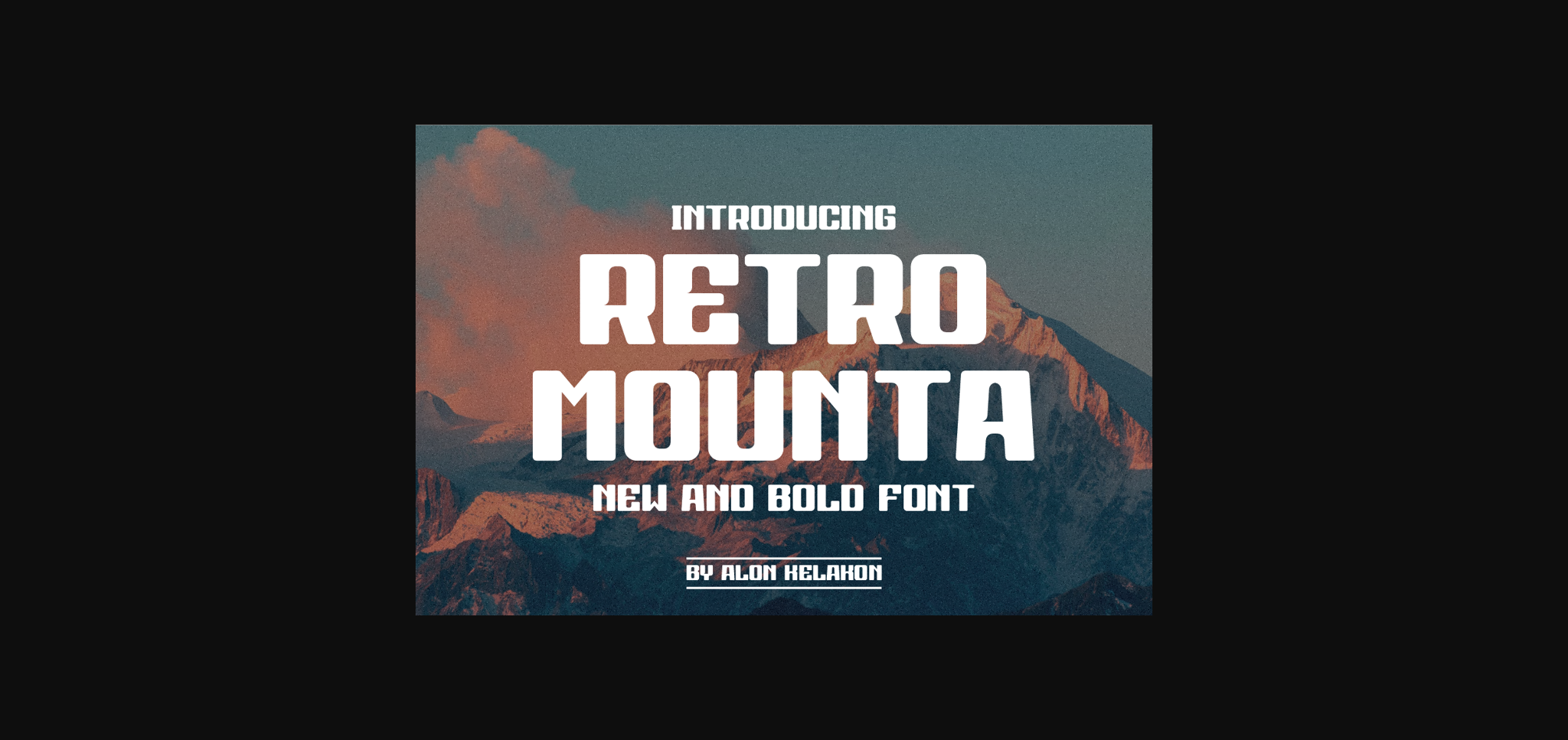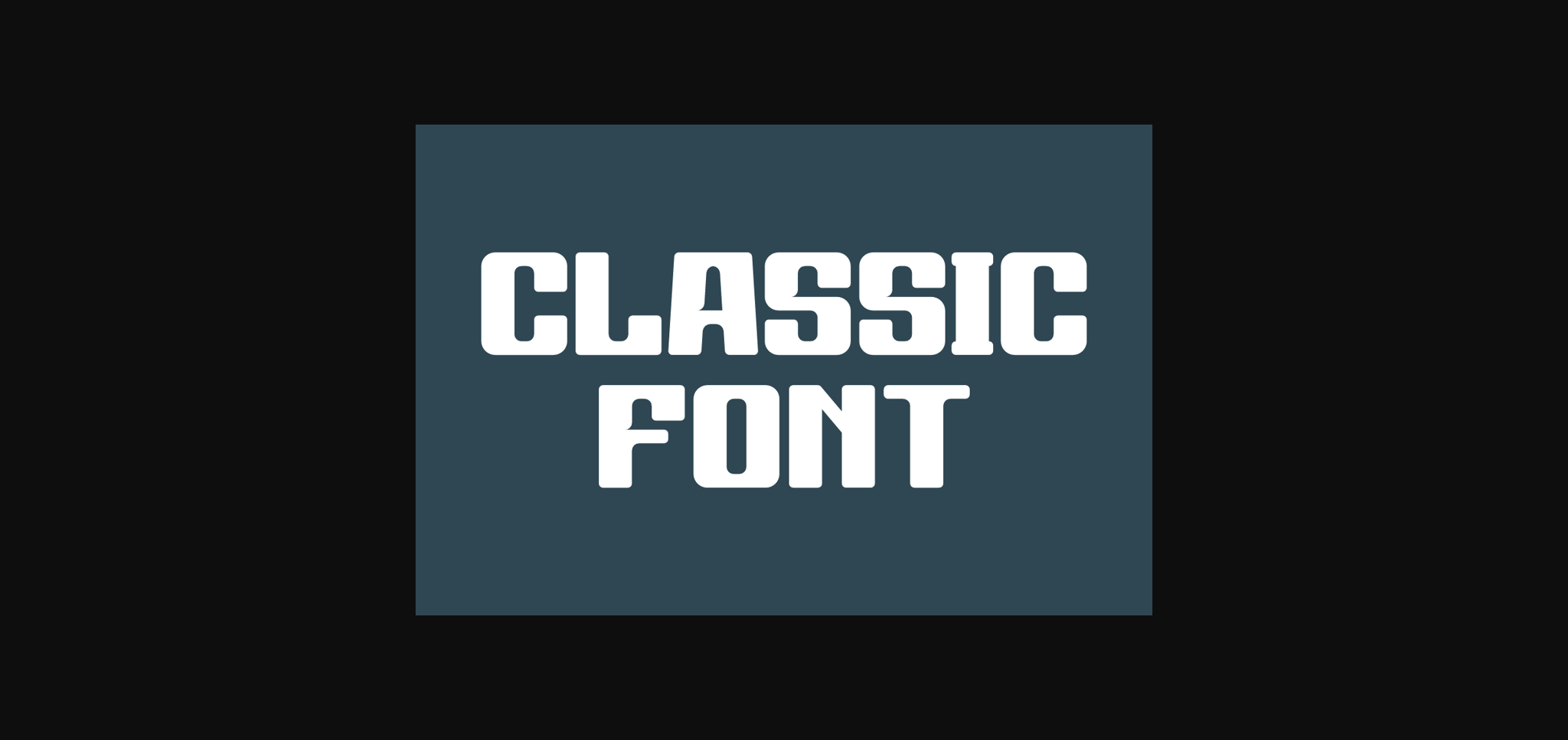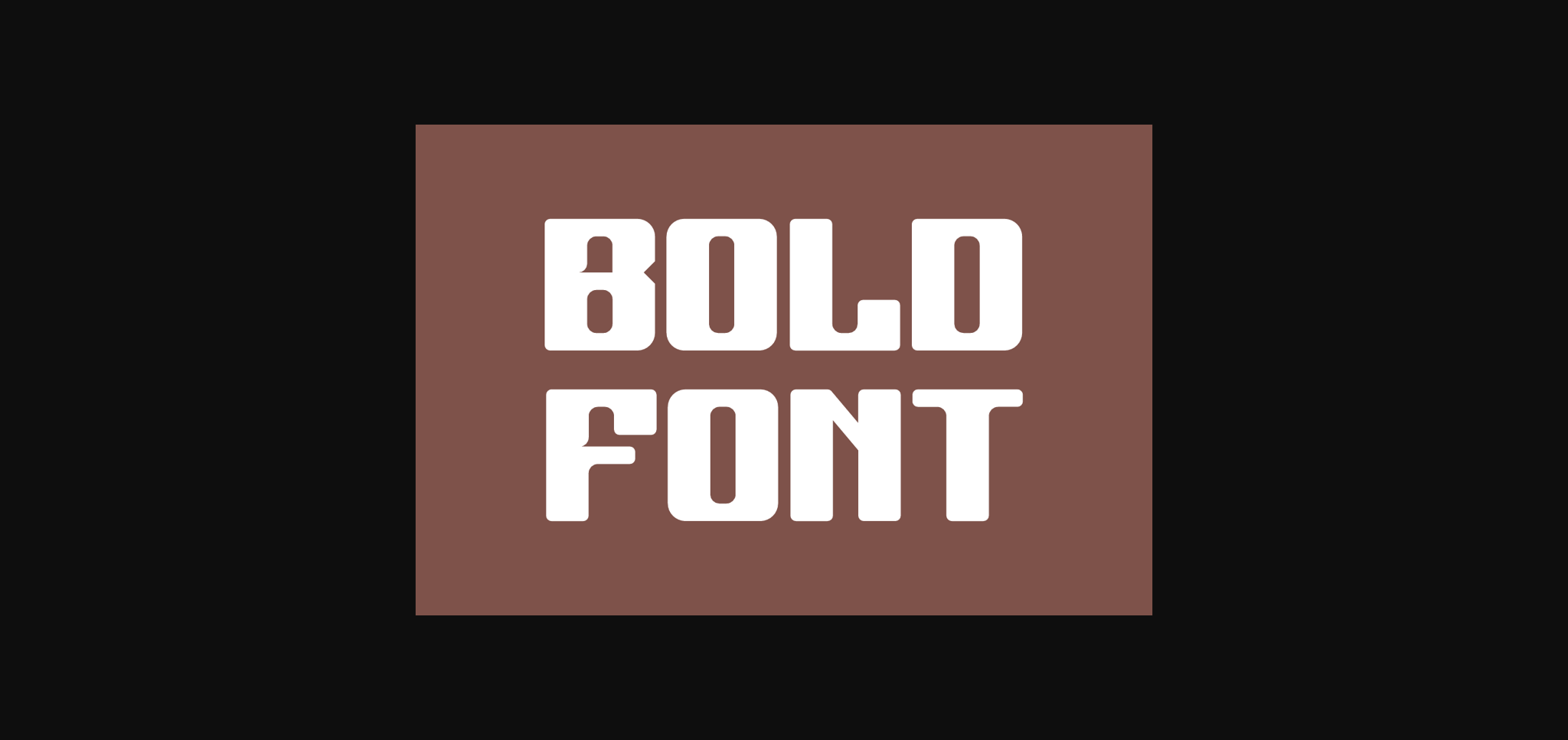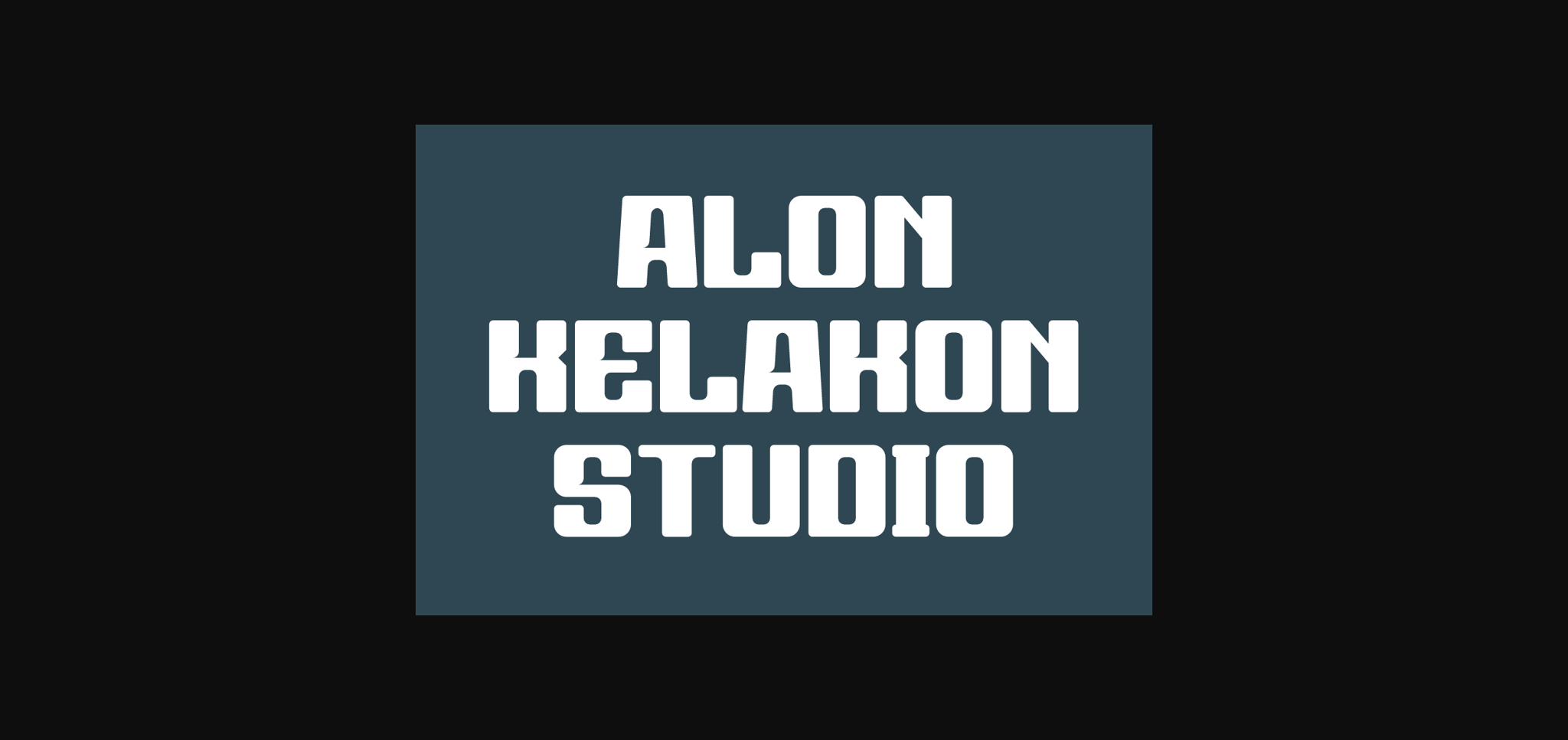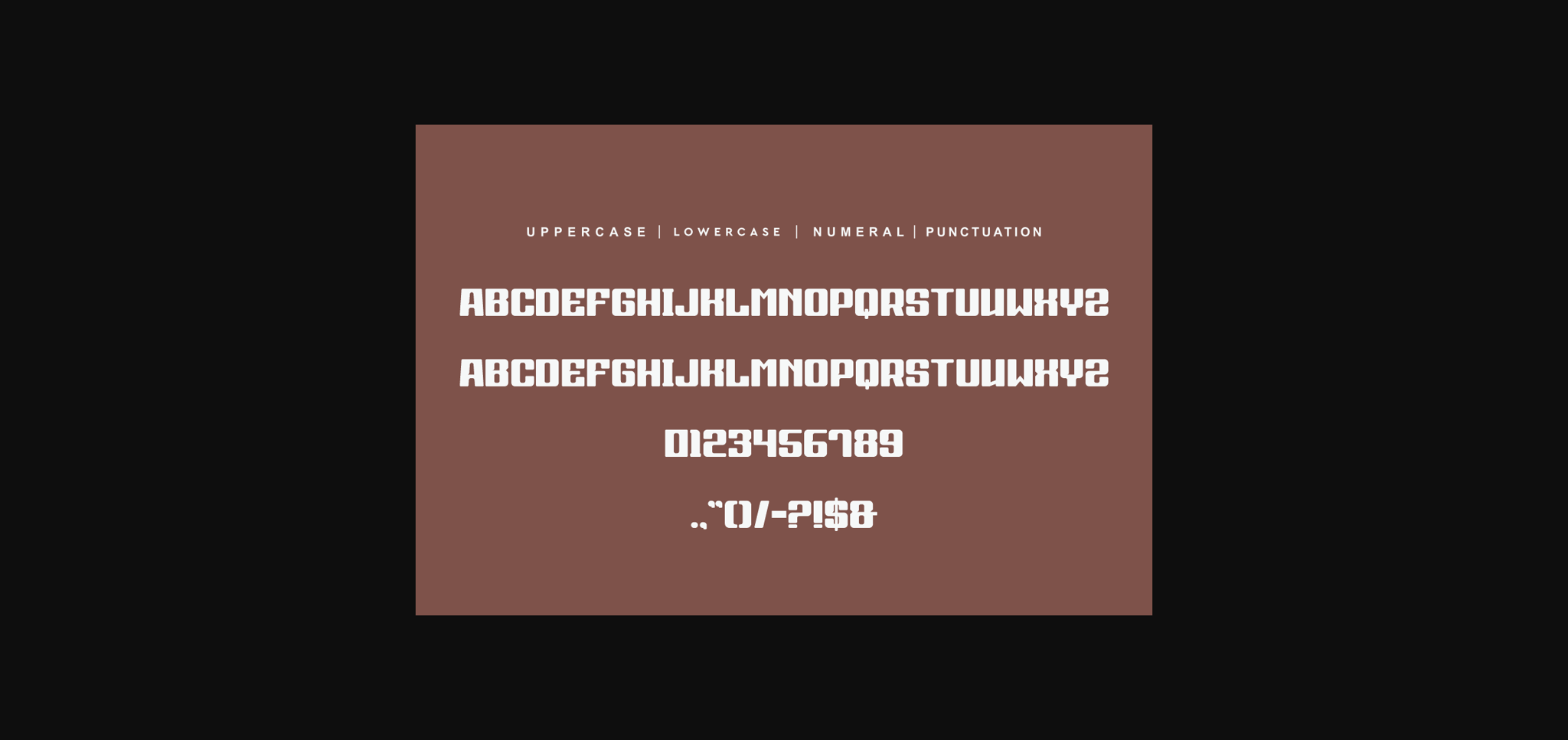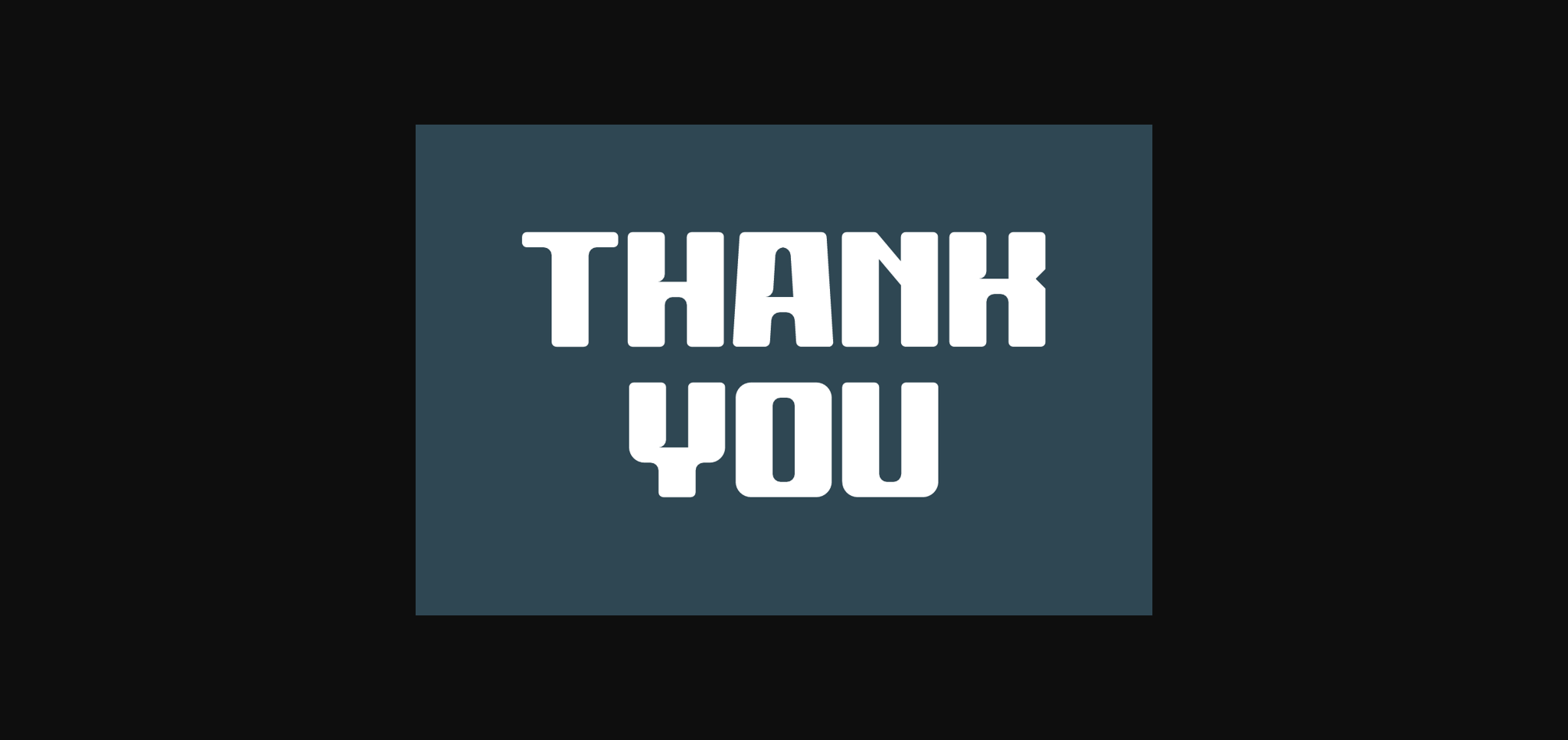
Retro Mounta Font
About Retro Mounta Font
With rounded corners and chubby bold looks, brings joy, smiles, and excitement to your upcoming projects. It is perfect for posters, game titles, cartoon movies, credit titles, magazines, and so on. Have fun!